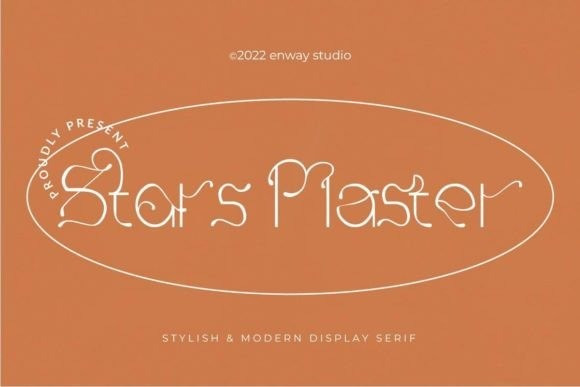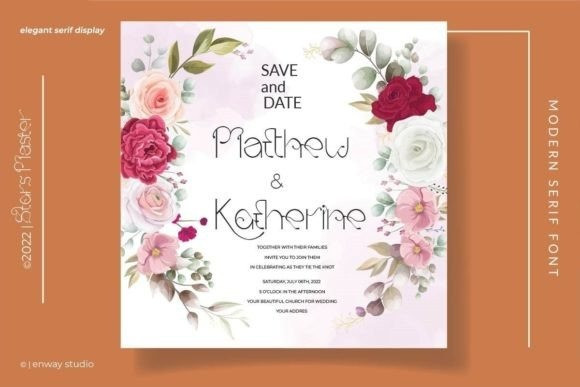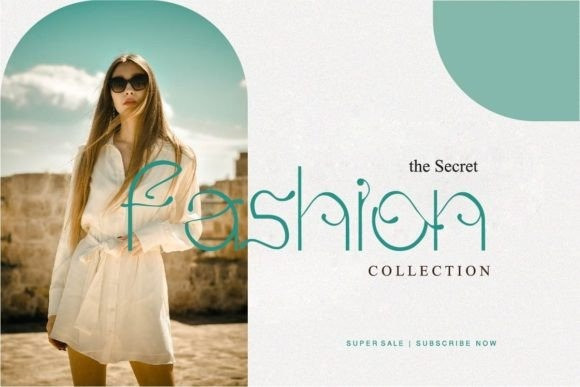
Stars Master Font
Stars Master is a modern serif display typeface with lightweight anatomy. This font was particularly crafted for those who need a beautiful and refined look to their designs.